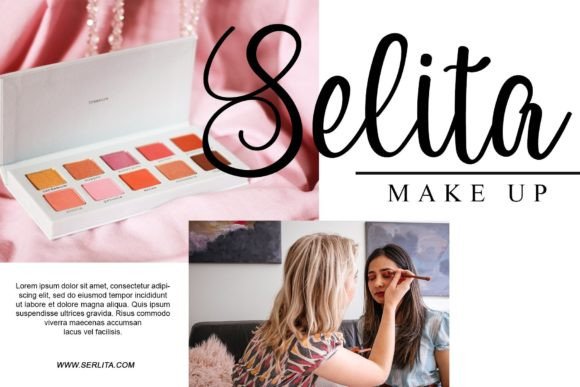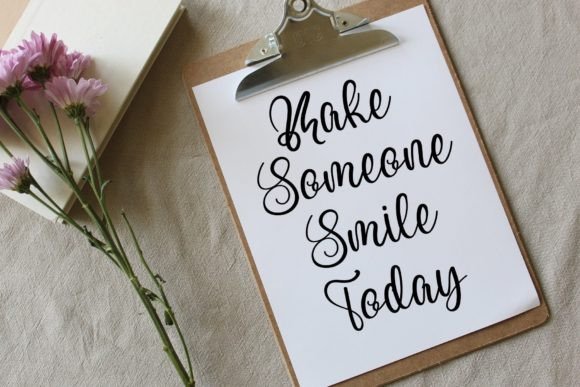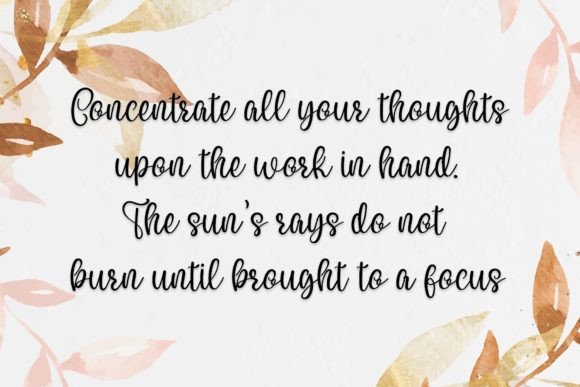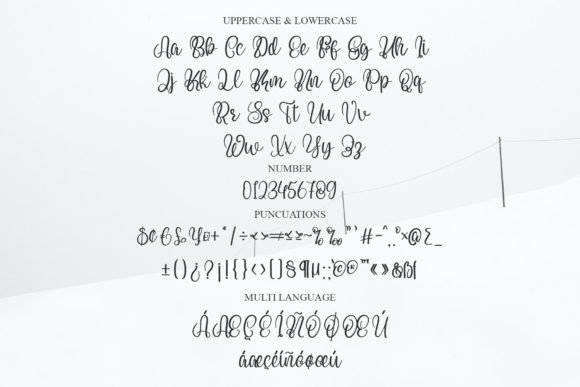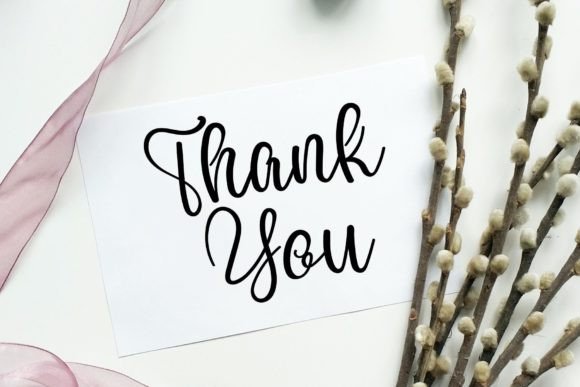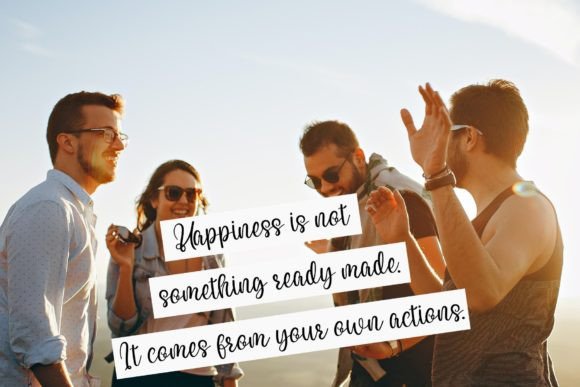
Mistakes Font
About Mistakes Font
“Mistakes” stands out as a delicate, elegant, and gracefully flowing handwritten font. Its charm lies in the beauty of well-balanced characters that bring a touch of sophistication to a diverse range of design projects. This versatile font, with its PUA encoding, not only offers exquisite characters but also provides easy access to a wealth of glyphs and swashes, making it a valuable asset for creative endeavors.
The delicate nature of “Mistakes” is evident in its subtle yet expressive strokes. Each character is meticulously crafted to achieve a harmonious balance, creating a font that exudes refinement and beauty. This delicate quality makes it a perfect fit for a variety of applications, from formal invitations to branding and beyond.
The elegance of “Mistakes” is not limited to its appearance alone; the flowing design imparts a sense of fluidity and grace, making it an ideal choice for conveying a personalized touch in different projects. Whether used for wedding stationery, thank-you cards, or other creative expressions, “Mistakes” brings a romantic and intimate quality to the written word, enhancing the overall sentiment.
One of the standout features of “Mistakes” is its PUA encoding, which unlocks a treasure trove of glyphs and swashes. This encoding provides designers with easy access to a variety of artistic elements, allowing for customization and creativity. Whether you’re looking to add a unique flourish or enhance the visual appeal of your design, “Mistakes” empowers you to do so effortlessly.
In the world of typography, “Mistakes” becomes more than just a font; it becomes a versatile tool for designers seeking both elegance and functionality. Its well-balanced characters maintain readability while adding a touch of sophistication to any project. Whether crafting logos, headlines, or other creative materials, “Mistakes” ensures that your designs leave a lasting impression.
In summary, “Mistakes” is a delicate and elegant handwritten font that transcends its name, offering a refined and versatile option for various design needs. With its well-balanced characters and PUA encoding, it becomes a canvas for creative expression, allowing designers to access a rich array of glyphs and swashes with ease. Let “Mistakes” be the elegant touch that elevates your designs, turning each project into a work of art.